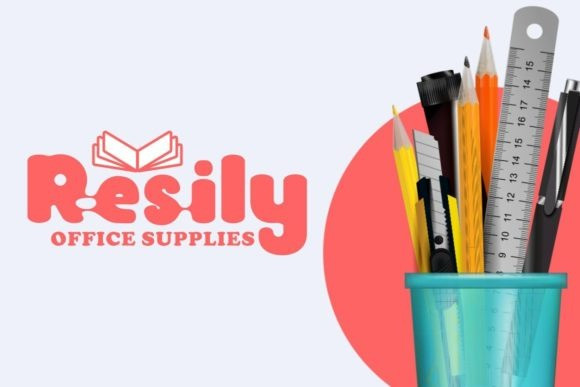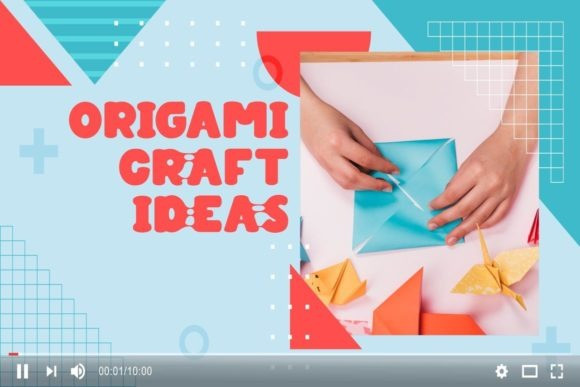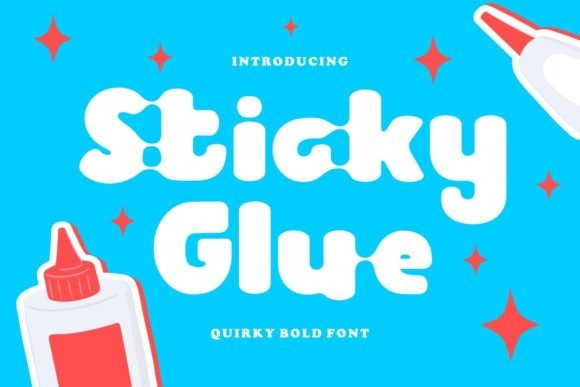
Sticky Glue Font
Sticky Glue Display Font is a cute and chunky lettered display font. It embodies playfulness and authenticity and is the perfect choice for any children activity or school project.